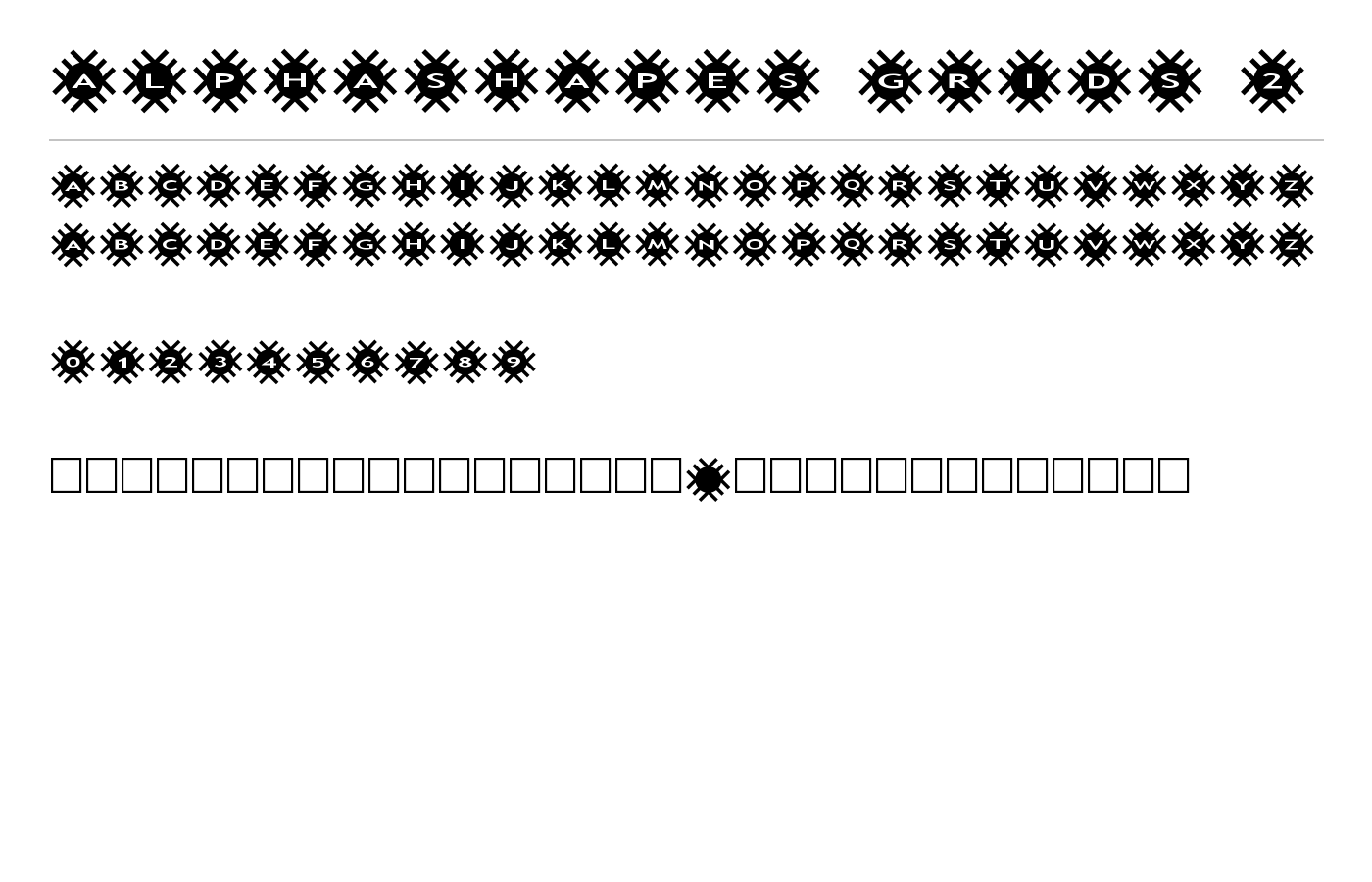
AlphaShapes grids 2 is a bold, decorative display font characterized by its unique grid-like, starburst design surrounding each letter and number. This distinctive style makes it perfect for eye-catching headlines, logos, or creative branding where a striking, modern, and geometric look is desired. Its strong visual presence suits artistic projects and packaging that need a playful yet structured statement.
AlphaShapes grids 2 Font
About AlphaShapes grids 2 Font
| Font family | AlphaShapes grids 2 Font |